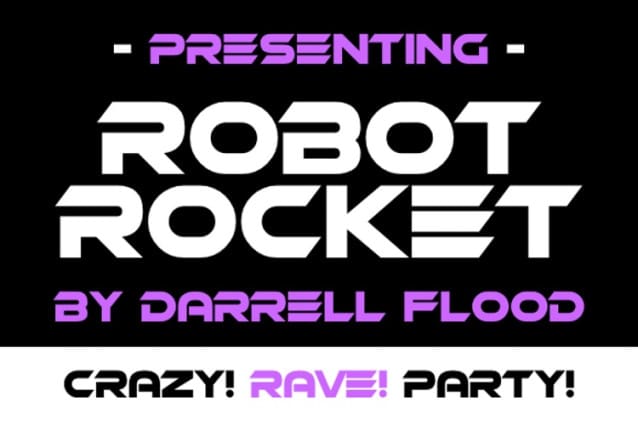
Robot Rocket Font
Robot Rocket Font is a retro futuristic typeface in stencil format. The font has a bold and big vibe and mixes sharp and round corners, kind of like the very old sci-fi movie titles. Perfect for space exploration, alien encounters, techno music and high tech themes!